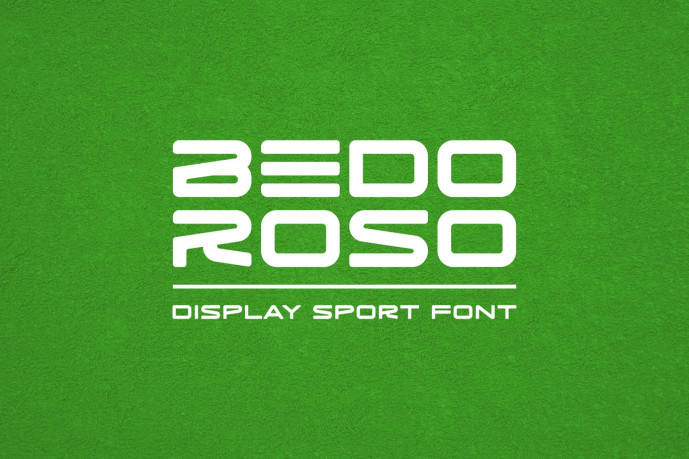
Bedoroso – Display Sport Font
Introducing our new product Bedoroso – Display Sport Font
Bedoroso – Display Sport Font is a bold and authentic display font. The font is suitable for any branding project like logo, esport, and many more. outstanding in a wide range of contexts.